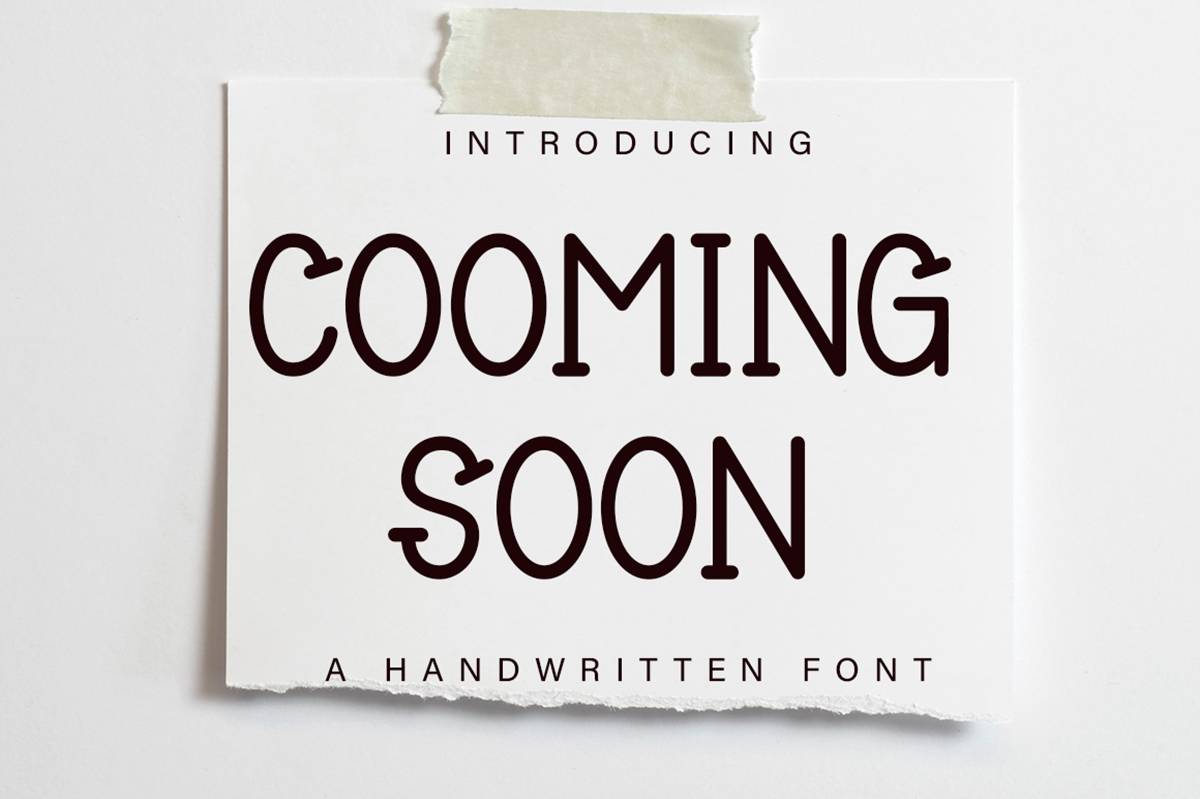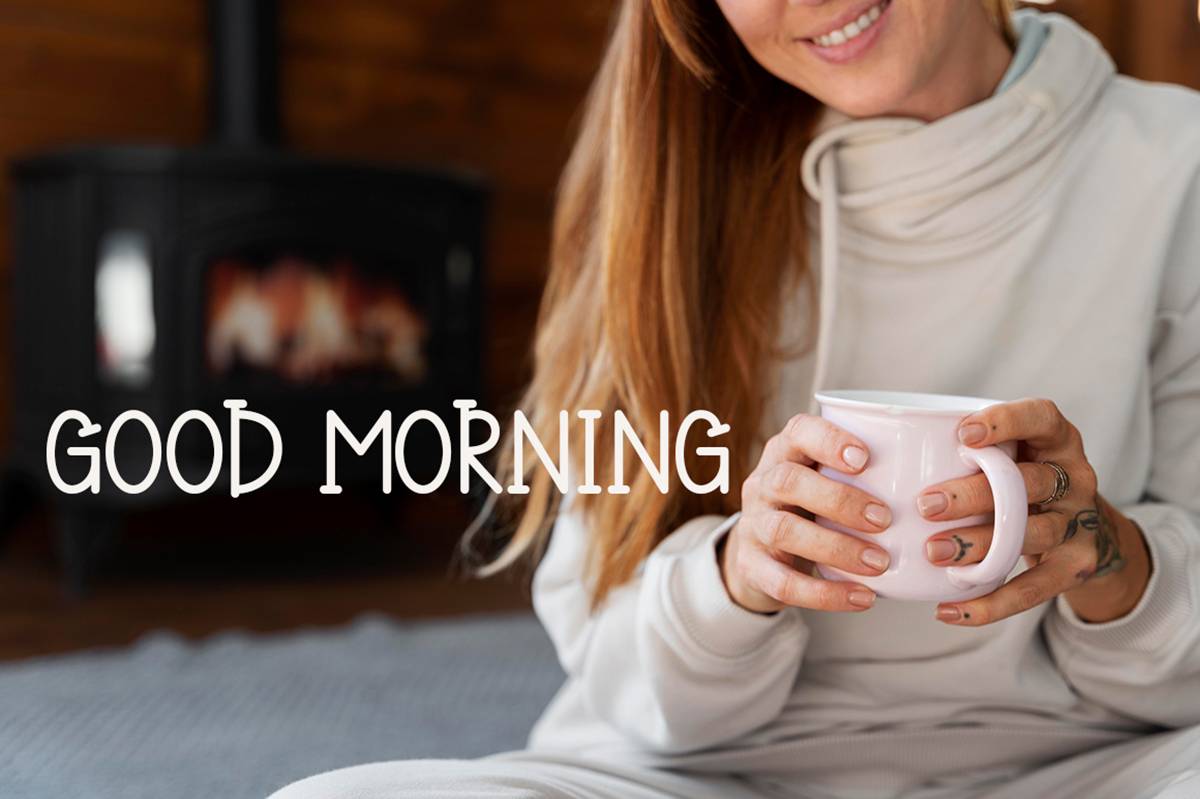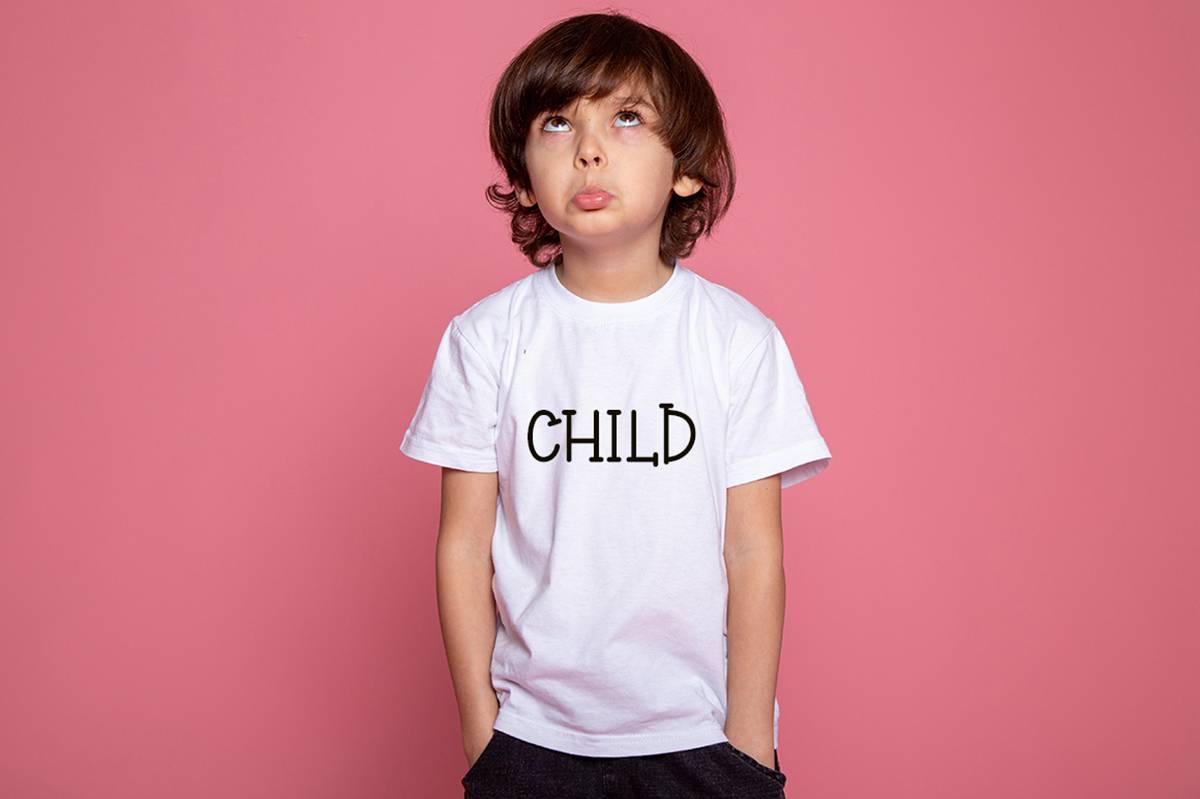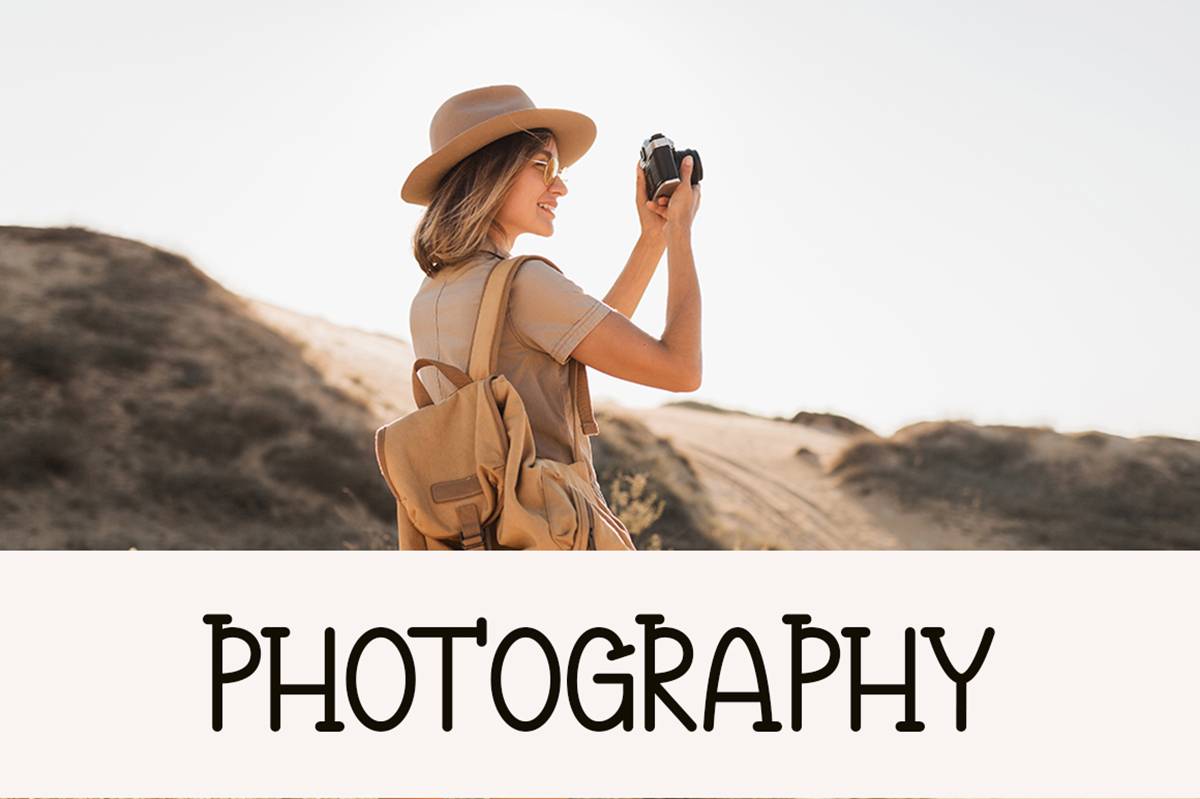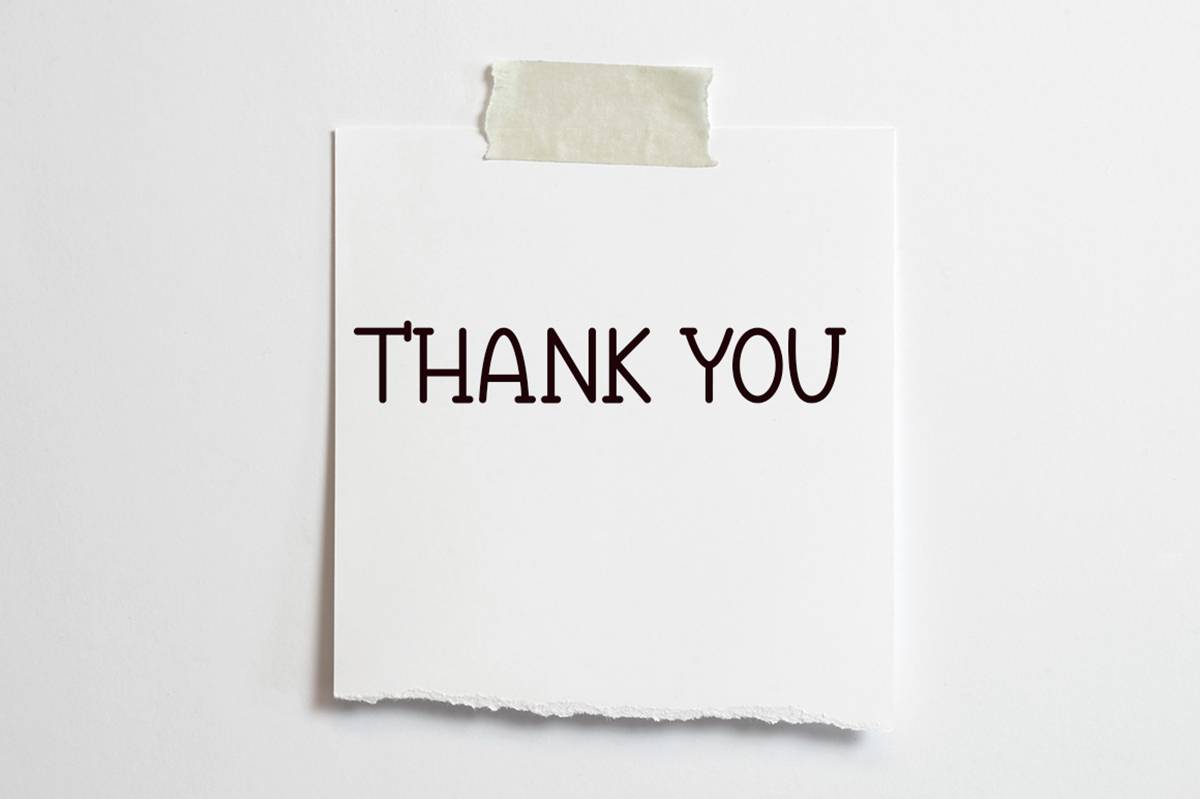
Cooming Soon is a playful and quirky sans serif font featuring rounded strokes and whimsical, hand-drawn letterforms that give it a friendly and approachable feel. With its irregular shapes and distinct character details, it works well for casual designs, creative projects, and playful branding that seeks an informal and fun personality. This font is ideal for headlines, posters, and any design needing a lighthearted and unique touch.
Cooming Soon Font